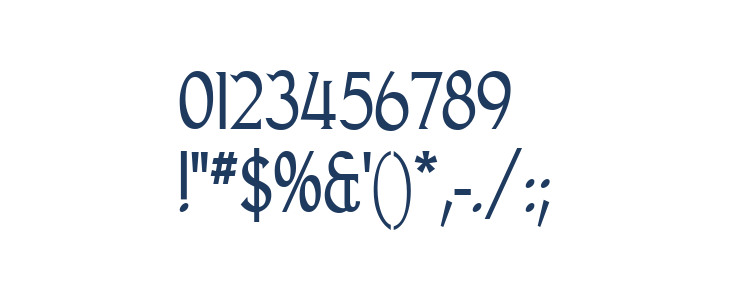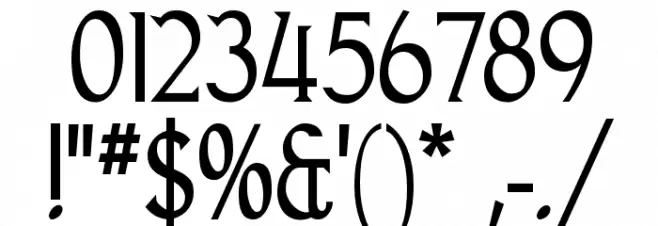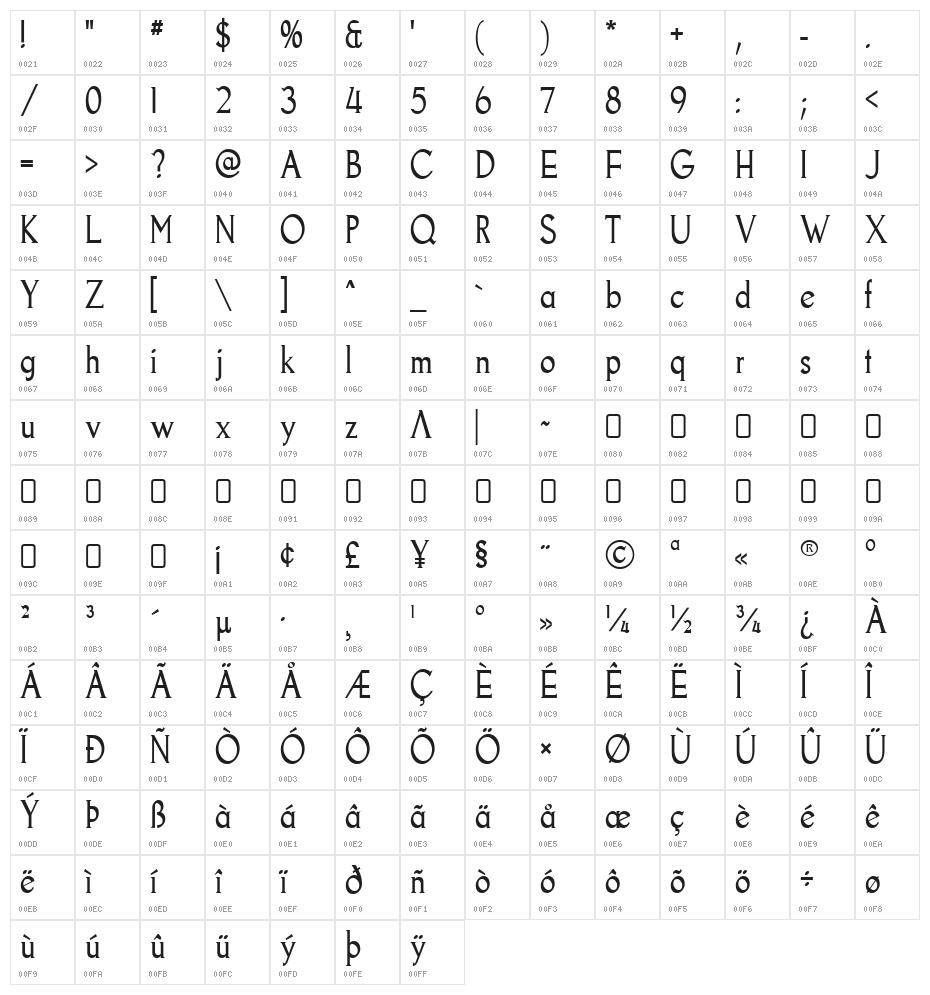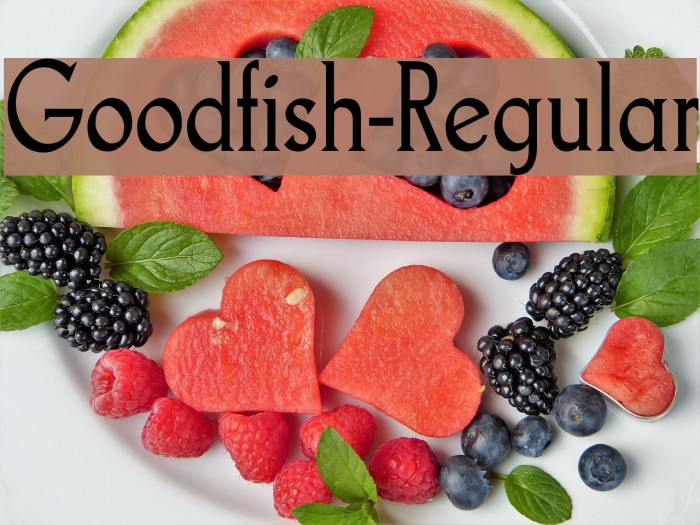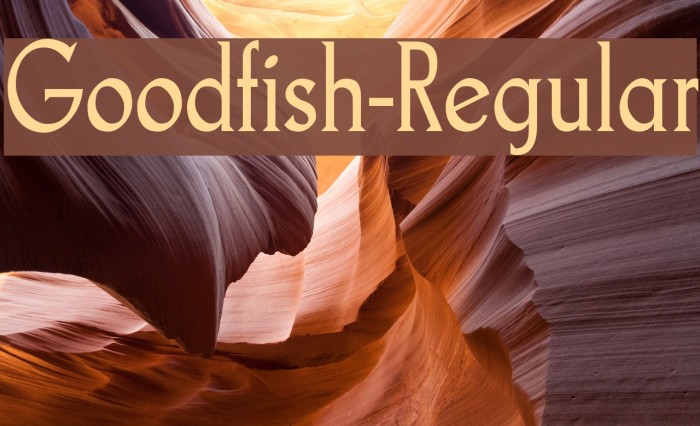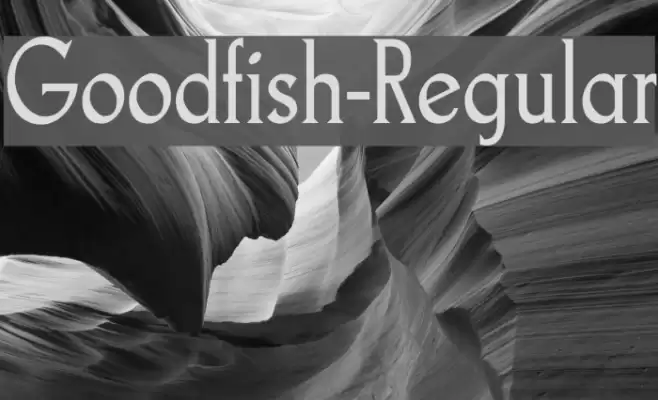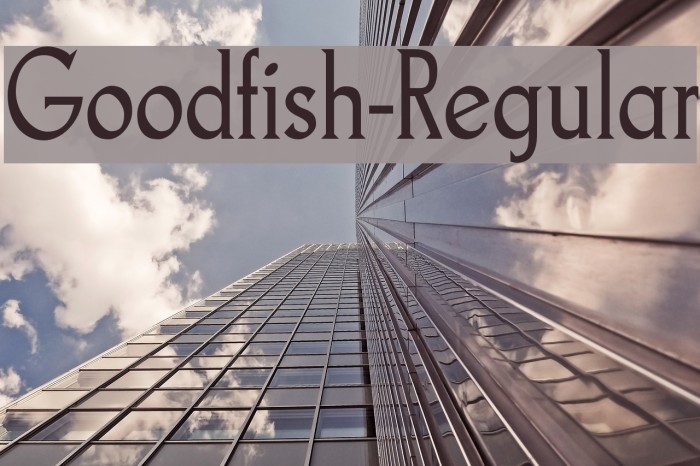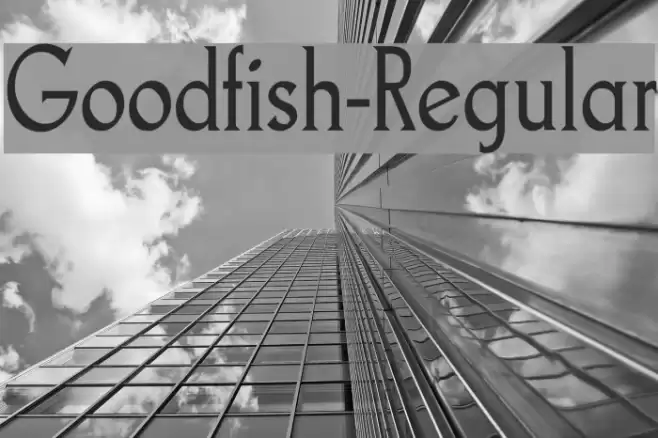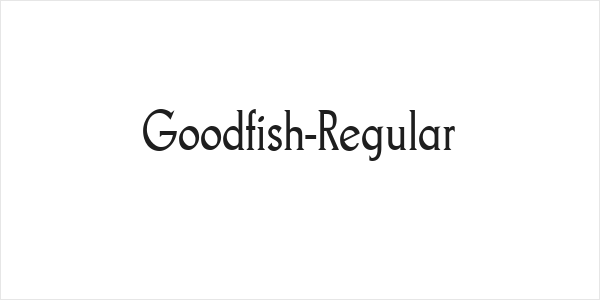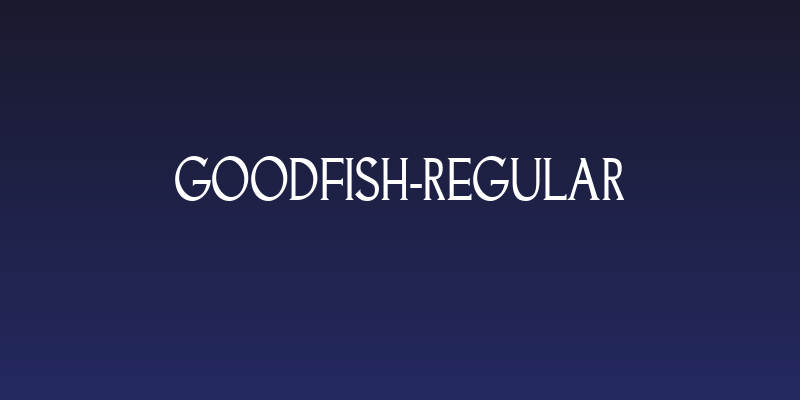
Goodfish-Regular Font
Goodfish-Regular Description
This font features a classic serif style with a modern twist, characterized by its elegant and refined letterforms. The uppercase letters are tall and stately, while the lowercase letters maintain a balanced and harmonious appearance. The numerals are clear and distinct, making them easy to read. Special characters are designed with a touch of sophistication, adding to the overall aesthetic. The font's structure is well-suited for both digital and print media, offering versatility in various design contexts. Its timeless appeal makes it a great choice for projects that require a touch of elegance and professionalism.
| Proposed Projects | Ideal for book covers, editorial design, branding, and formal invitations. |